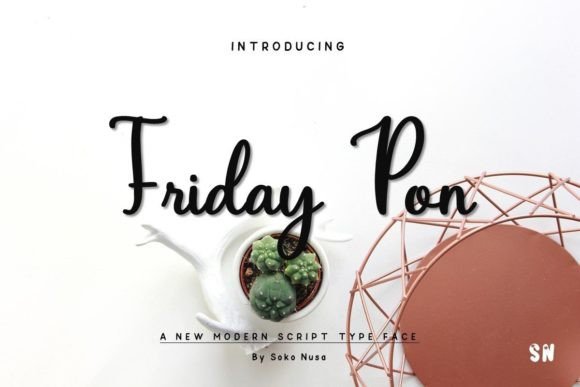
Introducing Friday Pon Font: Elevate Your Design with Elegance and Style
In the world of typography, a font can make or break a design. A well-crafted font can elevate your project from ordinary to extraordinary. If you’re looking for a font that exudes elegance, sophistication, and style, look no further than Friday Pon Font. In this article, we’ll delve into the features, benefits, and uses of Friday Pon, a carefully crafted handwritten font that’s perfect for fashion branding, photography, quotes, wedding invitations, and more.
What is Friday Pon Font?
Friday Pon Font is a beautiful, cursive, and stylish handwritten font designed to make your project stand out. Its elegant and flowing lines make it perfect for designs that require a touch of sophistication. Whether you’re a graphic designer, a marketer, or a DIY enthusiast, Friday Pon is an excellent choice for anyone looking to add a personal touch to their work.
Key Features of Friday Pon Font
- Cursive and Stylish: Friday Pon’s cursive design makes it perfect for creating beautiful, flowing text that’s easy to read and visually appealing.
- Handwritten: Friday Pon’s handwritten design gives it a personal and unique touch that’s perfect for adding a human element to your designs.
- Fashion Branding: The font’s elegant and sophisticated design makes it ideal for fashion branding, including logos, labels, and packaging.
- Photography: Friday Pon is perfect for photography projects, including photo captions, quotes, and descriptions.
- Wedding Invitations: The font’s cursive and stylish design makes it an excellent choice for wedding invitations, save-the-date cards, and other wedding-related materials.
Benefits of Using Friday Pon Font
Using Friday Pon Font offers several benefits, including:
- Elegance and Sophistication: The font’s elegant and sophisticated design adds a touch of class to your projects.
- Versatility: Friday Pon is versatile and can be used for a wide range of projects, from fashion branding to wedding invitations.
- Unique and Personal: The font’s handwritten design gives it a unique and personal touch that’s perfect for adding a human element to your designs.
Tips and Tricks for Using Friday Pon Font
- Use Swashes: Use the font’s swashes to add a touch of elegance and sophistication to your project.
In conclusion, Friday Pon Font is a beautiful, cursive, and stylish handwritten font that’s perfect for fashion branding, photography, quotes, wedding invitations, and more. Its elegant and sophisticated design, PUA encoded features, and versatility make it an excellent choice for anyone looking to add a touch of elegance and style to their projects. With its ease of use and customization options, Friday Pon Font is a must-have for any designer, marketer, or DIY enthusiast.
- What is Friday Pon Font? Friday Pon Font is a carefully crafted handwritten font that’s perfect for fashion branding, photography, quotes, wedding invitations, and more.